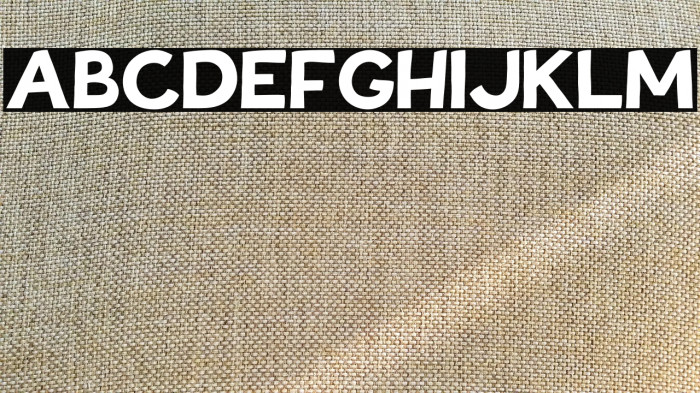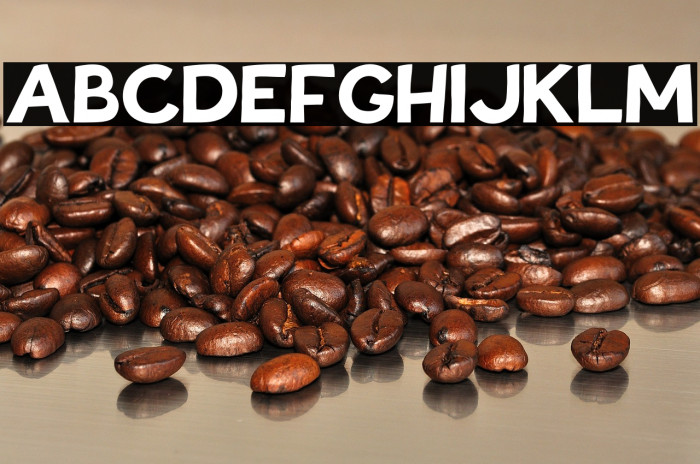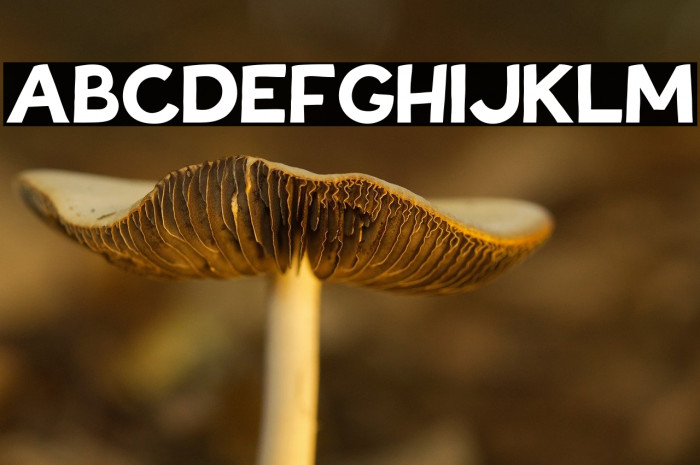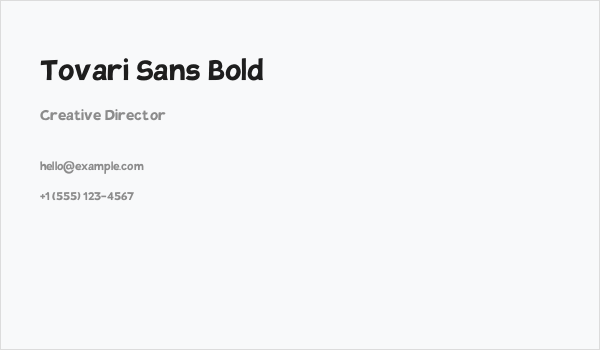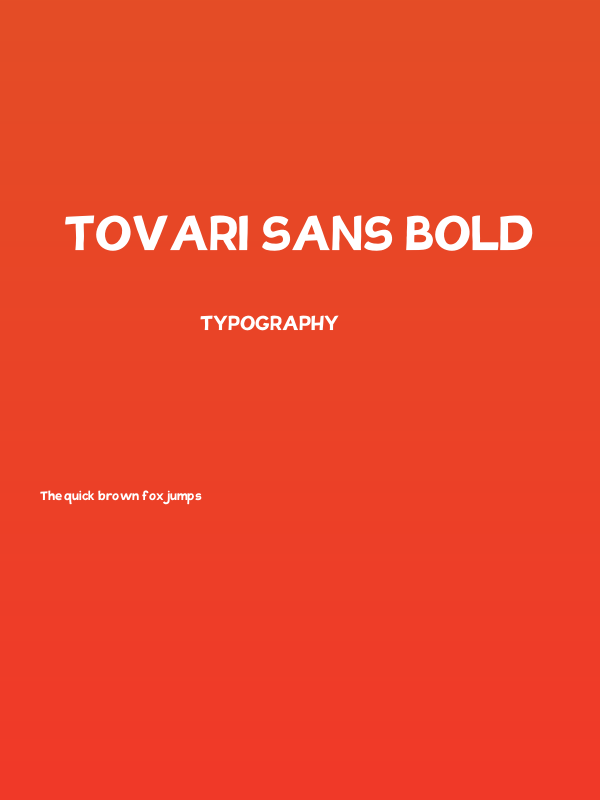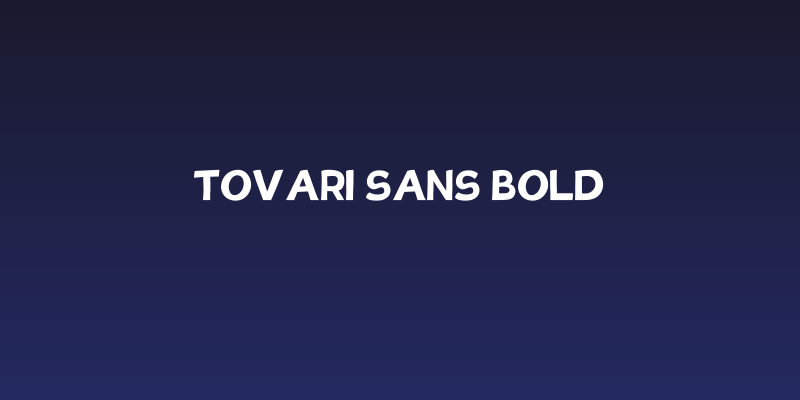
Tovari Sans Bold Font
This font features a bold and playful design with rounded edges and a slightly irregular shape, giving it a friendly and approachable appearance. The uppercase letters are robust and well-defined, while the lowercase letters maintain a consistent style that complements the overall look. The numerals are clear and easy to read, making them suitable for various applications. Special characters are included, adding versatility to the font. Its boldness and unique style make it stand out, ideal for projects that require a touch of personality and creativity.
Overall StylePlayful
Proposed ProjectsIdeal for children's books, playful branding, posters, and creative advertisements.